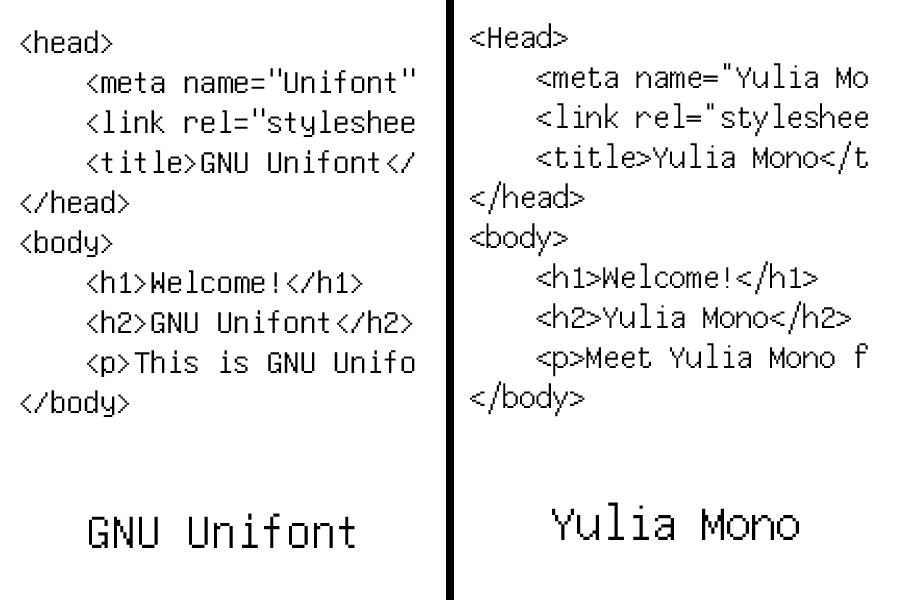
• Are you are the perfectionist? Yulia Mono font is probably for you!
Yulia Mono font is a pixelated monospaced font that inspired from both Helvetica and GNU Unifont. Perfect for code blocks, tabular datas, and even pixel arts! It features many smooth curves at most of parts of the glyphs.
Side by side difference: GNU Unifont vs. Yulia Mono